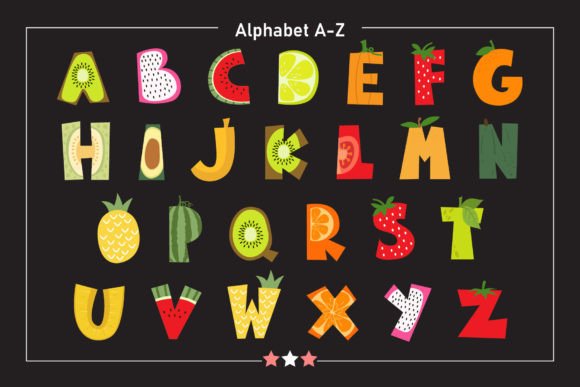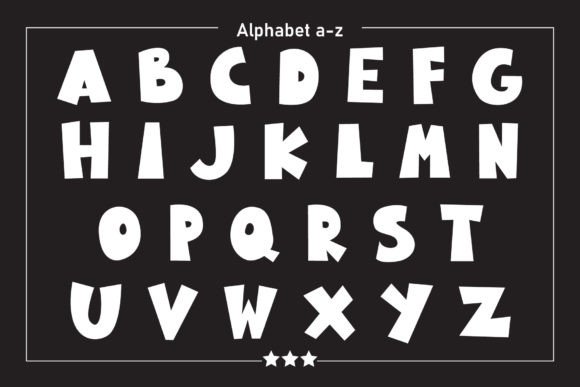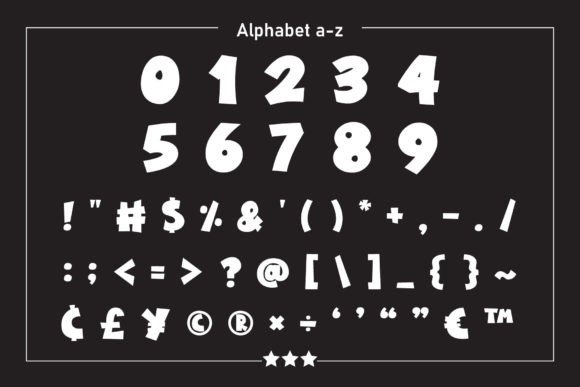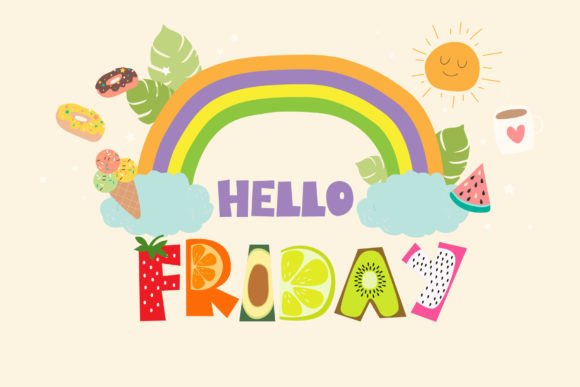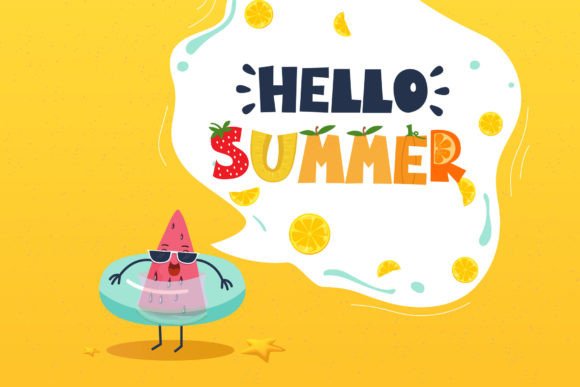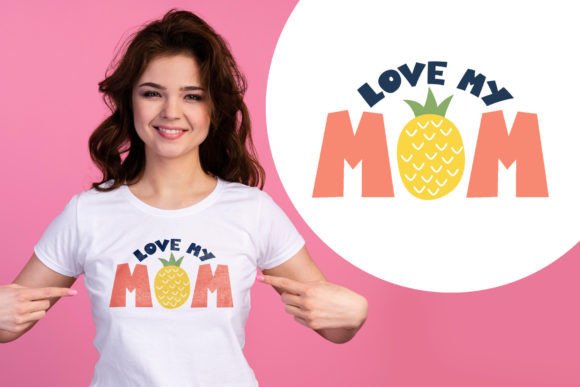
The Perfect Blend of Fun and Creativity: Introducing Cute Fruit Font
Do you ever find yourself scrolling through social media, pinning adorable designs and color schemes that make your heart skip a beat? I know I do! And more often than not, I’m drawn to the whimsical, playful vibe of fruit-inspired designs. That’s where Cute Fruit Font comes in – a delightful, full-color display font that’s sure to add a pop of personality to your creative projects.
This charming font is designed to blend seamlessly with Display fonts, making it the perfect addition to your design toolkit. Whether you’re crafting eye-catching social media posts, designing beautiful stationery, or creating gorgeous invitations, Cute Fruit Font is sure to elevate your work and make it stand out from the crowd. As a designer, you know the value of a well-chosen font – and this one is sure to be a game-changer.
Cute Fruit Font Key Features
- Unique Characteristics: Cute Fruit Font features a playful, handwritten design with rounded edges and a whimsical feel, making it perfect for creating eye-catching and child-friendly materials.
- Glyphs and Characters: The font includes a wide range of characters, including uppercase and lowercase letters, numbers, punctuation marks, and special characters, ensuring that you have everything you need to create engaging content.
- Style and Variations: The font comes in a single style, but its playful design makes it versatile and easy to use in various contexts, from formal to informal projects.
Cute Fruit Font Review
As a designer, I was excited to dive into the “Cute Fruit Font” and see what it has to offer. Overall, I think it’s a great addition to any project that needs a playful and whimsical touch.
- The font’s design is undeniably cute and fun, making it perfect for children’s books, food branding, or any other project that needs a lighthearted feel.
- The font is highly customizable, allowing you to adjust the size, color, and spacing to fit your design needs.
- The font is quite bold and may not be suitable for projects that require a more subtle or elegant look.
- The font’s design can feel a bit childish, which may not be appealing to all designers or clients.
- The font’s character set is limited, which may not be suitable for projects that require a wide range of characters or languages.
Overall, I think the “Cute Fruit Font” is a great option for designers who need a fun and playful font. While it may have some limitations, its customizability and wide range of formats make it a great addition to any design toolbox.
Tips for Getting the Most Out of Cute Fruit Font
Experiment with different font combinations and sizes to create a unique look.
Use Cute Fruit Font for food-related designs, such as fruit labels or menu boards.
Consider pairing Cute Fruit Font with other playful fonts for a fun and whimsical effect.